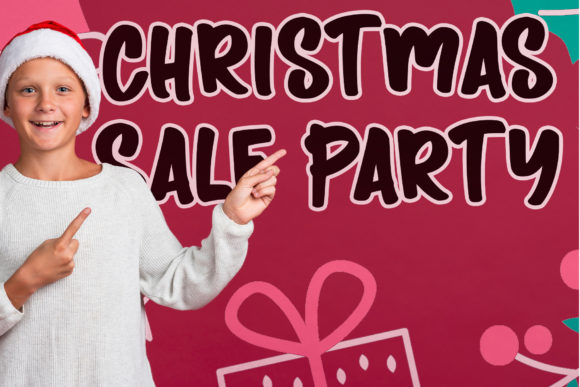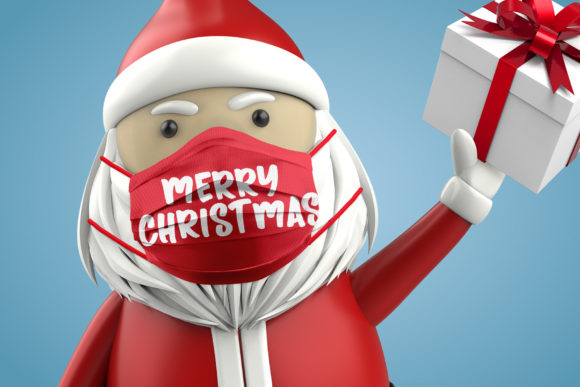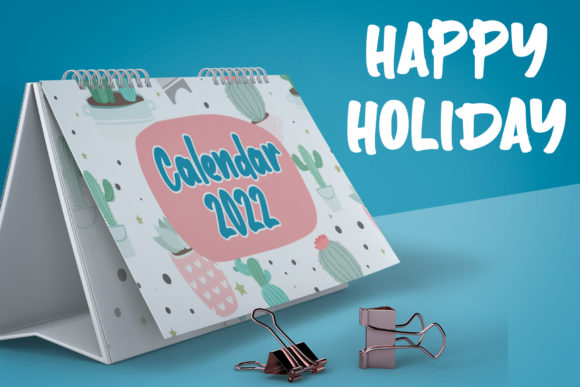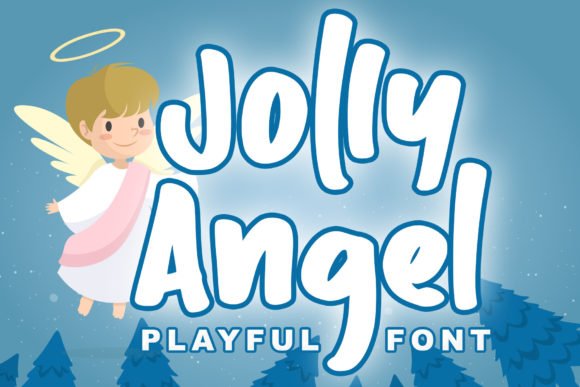
Introduction to Jolly Angel Font
Jolly Angel is a modern display font that is readable, bold and stylish.
It is defined by smooth curves and is perfect for fashion branding or editorial designs Add it confidently to your projects, and you will love the results.
Key Features of Jolly Angel Font
Why Choose Jolly Angel Font?